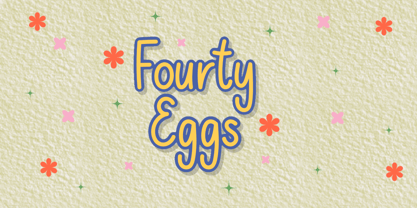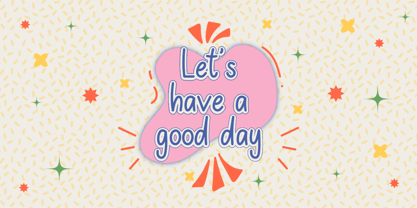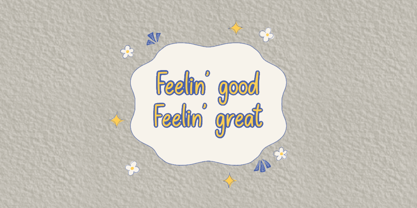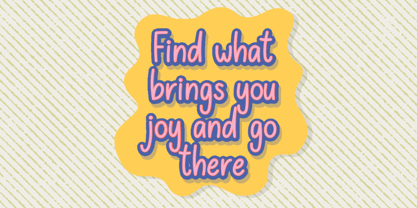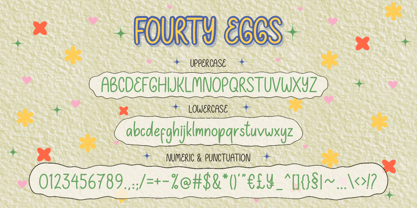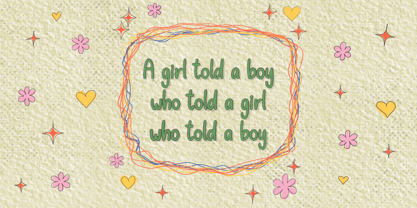
Fourty Eggs
by Khaiuns
The Fourty Eggs Font Family was designed by Khair Unnas and published by Khaiuns. Fourty Eggs contains 1 styles. More about this family
Introducing Fourty Eggs, a delightful handwritten script font inspired by the playful and warm essence of childhood. Designed with stability and rounded elegance, this hand-drawn display font exudes charm and warmth, making it a perfect choice for projects that need a unique and personal touch. With its natural handwritten elegance, Fourty Eggs is ideal for logos, poetry, social media graphics, photography, and more. The result is a cohesive and beautiful look that brings casual warmth and charm to any design.
• Fourty Eggs Regular
• Glyphs: 231+ total glyphs
• Characters: Standard English characters and accented characters
Designers: Khair Unnas
Foundry: Khaiuns